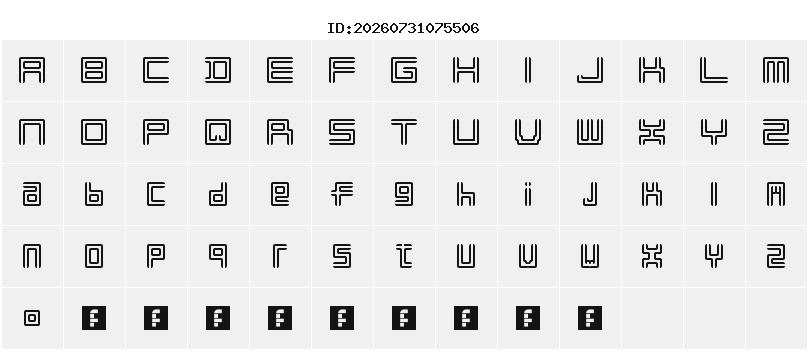
• Font Name: Liner
• Full Font Name: Liner Regular
• Designer: George J Fox
• Description: “Liner” was built with FontStruct
About Liner.ttf
Liner.ttf is a modern, elegant sans-serif font designed for ultimate readability and visual harmony. Perfect for branding, headlines, web design, and print materials.